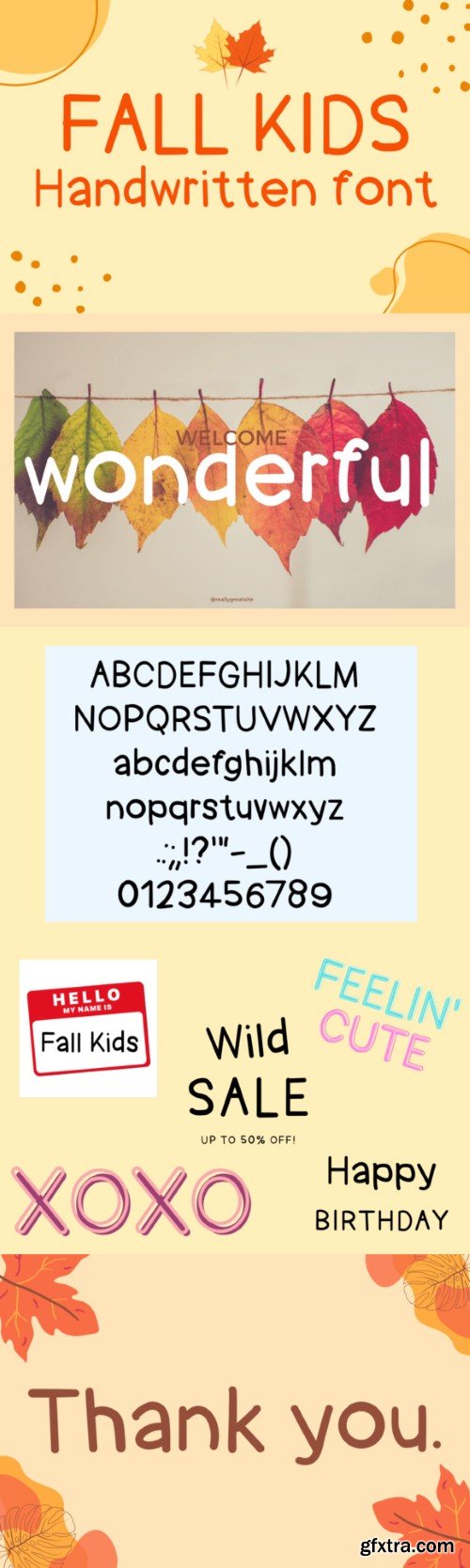
fall kids font
Superdong font is a sweet and friendly handwritten display font. Cute and fun, this font is ideal for crafts,digital design,presentation or writing wedding invitation, cards,or any other design that might need a fun touch! It is ideal for use in school for both teachers and students.It will work great for comic book style,game online,love shirt,posters,movie titles.